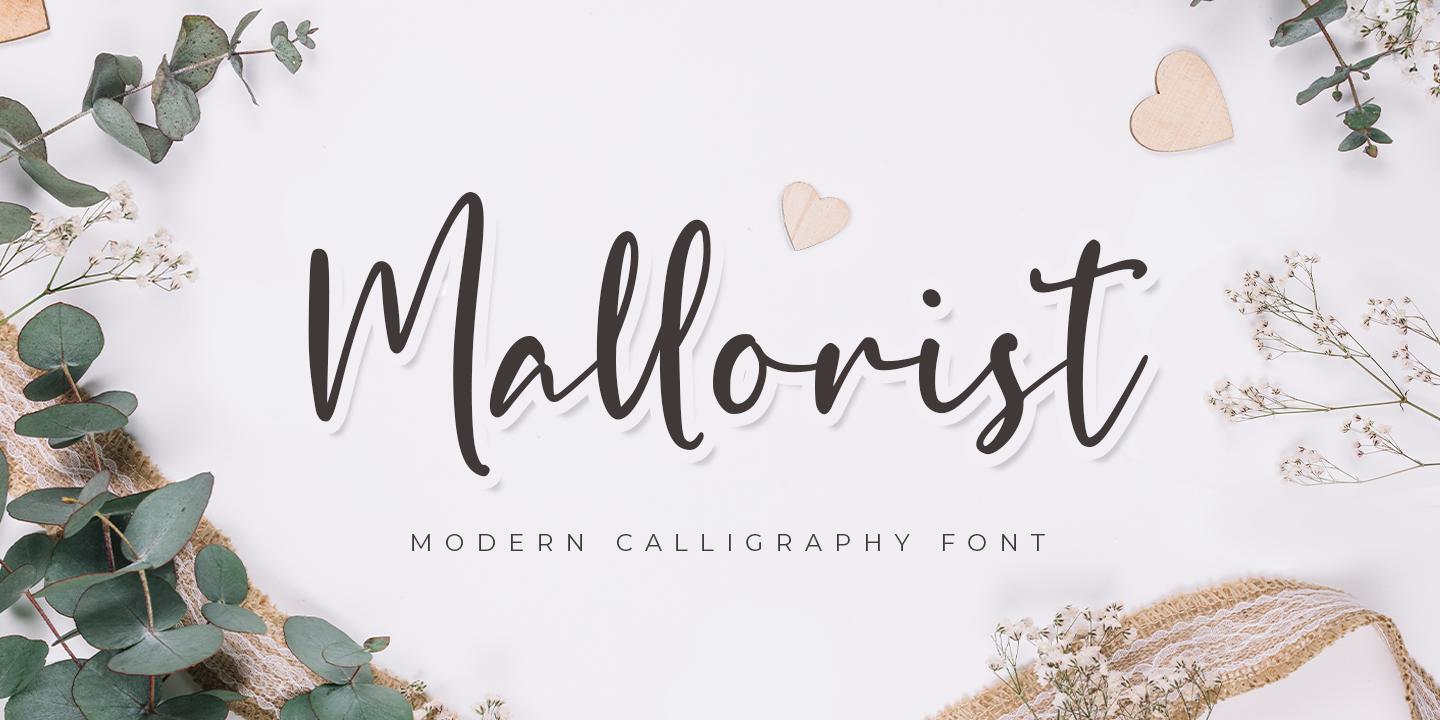
Mallorist Font is perfect for luxury boutique branding, high-end art gallery signage, sophisticated wine labels, premium interior design portfolios, elegant fashion magazines, upscale jewelry advertisements, refined cultural institutions, and exclusive event invitations. This distinguished typeface excels in luxury market applications, artistic sophistication designs, and any project requiring cultivated elegance that communicates refined taste and cultural appreciation through sophisticated visual refinement.
What makes Mallorist Font exciting is its exceptional ability to convey artistic sophistication and cultural refinement through meticulously crafted letterforms that embody the essence of educated taste and luxury appreciation. The font features elegantly proportioned characters with subtle artistic influences and sophisticated curves that evoke feelings of cultural depth and refined sensibility, making it ideal for brands seeking to establish connections with discerning audiences and communicate through elevated visual language. Its cultured presence ensures immediate recognition of artistic refinement and sophisticated taste.
Mallorist Font family includes multiple weights and styles: Regular, Bold, Light, Medium, Italic variations, and artistic alternates with cultured embellishments and sophisticated decorative elements. Each family member maintains the distinctive refined character while offering comprehensive design options for luxury campaigns, from elegant descriptive text to sophisticated headlines that establish cultural authority and artistic credibility through refined typographic excellence.
Whether you're designing luxury cultural brands or creating sophisticated artistic marketing campaigns, Mallorist Font Free Download provides the perfect typography solution for refined branding needs. This font transforms ordinary text into cultured artistic statements that communicate sophisticated taste and cultural appreciation. Luxury art institutions and premium lifestyle brands choose this typeface for its ability to convey artistic sophistication through meticulously crafted letterforms that celebrate refined culture and establish unquestionable artistic credibility.